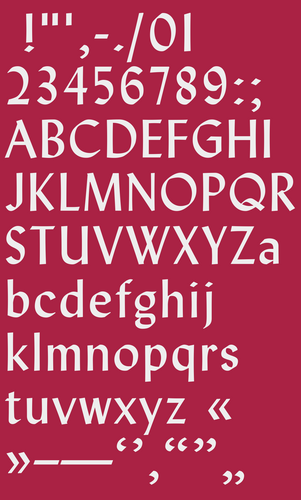
Andily Font
A digitisation of Lydian (Warren Chappell, 1939-01-11) from the terrible scan at the US PTO.
The scan has only the ASCII A-Z, a-z, digits 0-9, and /ampersand. I have digitised those, except for the ampersand. This font is in Early Access, at least until i get round to the ampersand.
I've added some minimal punctuation and quote symbols. Where appropriate—dashes and « angled quotes »—the case OpenType Layout feature can be used to select alternate glyphs that are better matches to the capital letters.
It is all drawn to my usual high standards and lovingly kerned.
Andily is an anagram of Lydian.